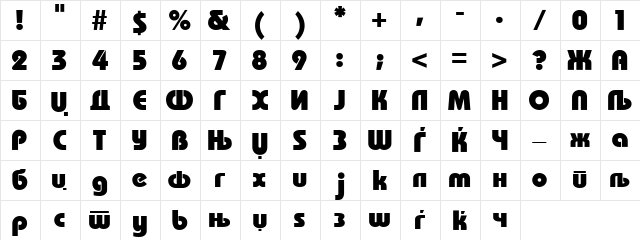
Mak_Bauhaus-HeavyKIR Bold
Design Context for Mak_Bauhaus-HeavyKIR Typeface
Mak_Bauhaus-HeavyKIR offers clean, dependable letterforms without strong stylistic allegiance, making it a practical choice for designers who need flexibility. Its bold stroke weight gives it real presence on the page.